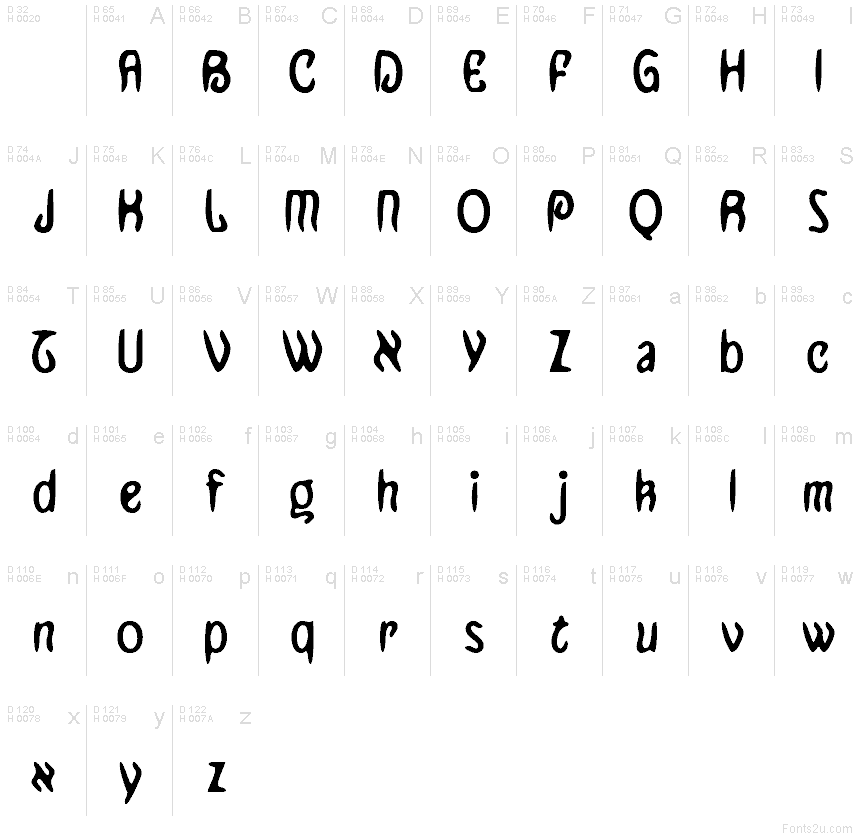
CSRazelDrawn-Regular Demo
CS Razel Drawn font is a condensed handwritten font by Craft Supply Co. This quirky typeface imitates the natural handwriting style with irregular alignment and whimsical undertones. Each character carries a handcrafted feel further enriching this template’s casual vibe. Properly balancing fun with contemporary relevance, this font is an ideal choice for quirky projects.
Use it in branding designs, your business cards, stationery sets, greeting cards, invitations, or tilted magazine titles and covers. Social media posts can benefit from this font too as well as personal blogs and online advertising graphics.